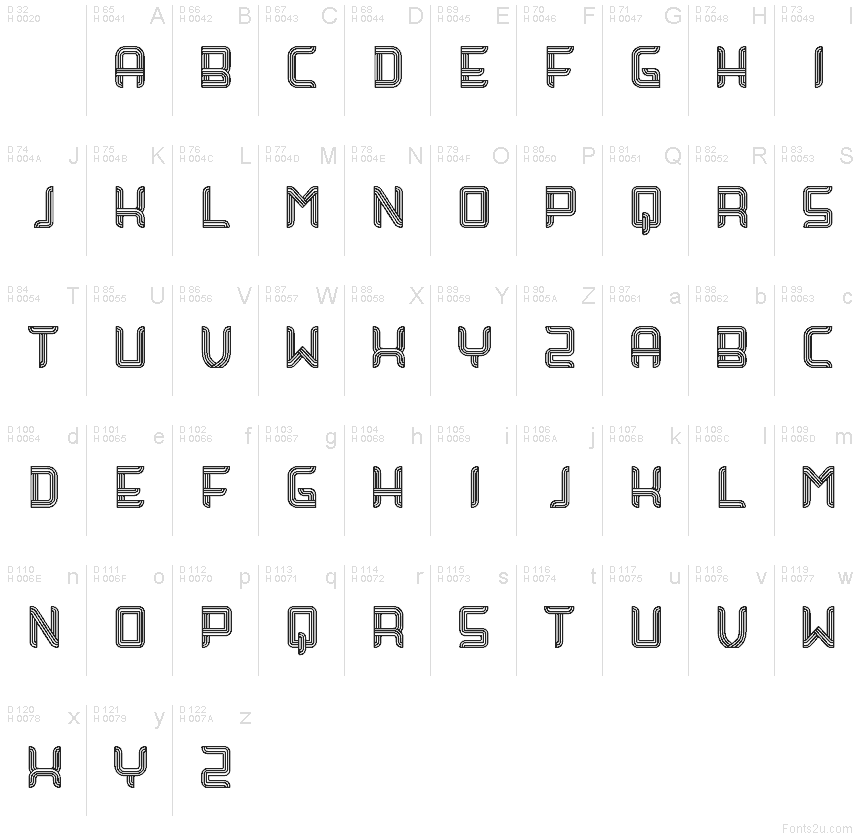
Floralogy Book Regular
Floralogy Book font by Vladimir Nikolic is a bold decorative display typeface inspired by art deco influences and geometric patterns. It features intricate linear detailing, merging vintage appeal with contemporary flair. Its detailed styling generates charming text that pleases its viewers and leaves them in awe.